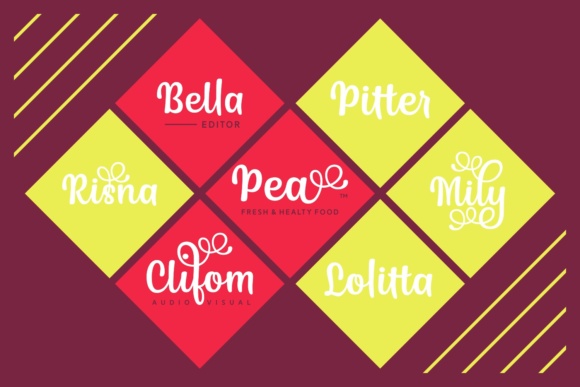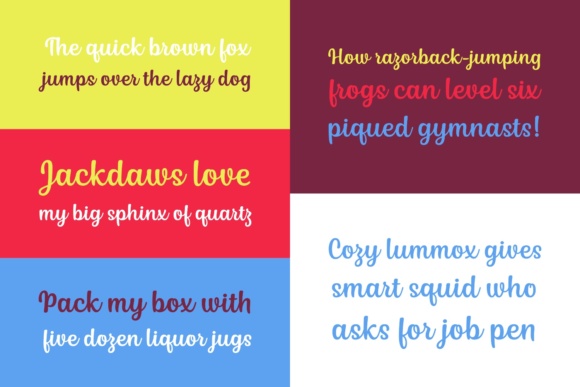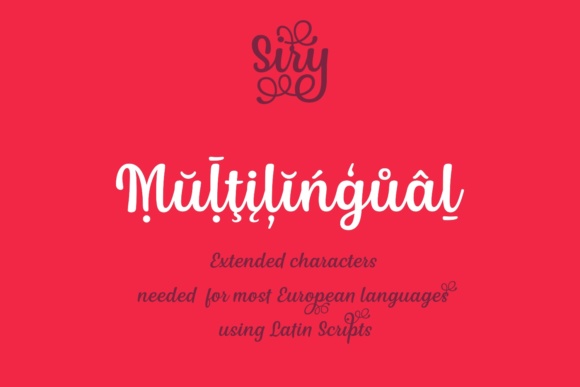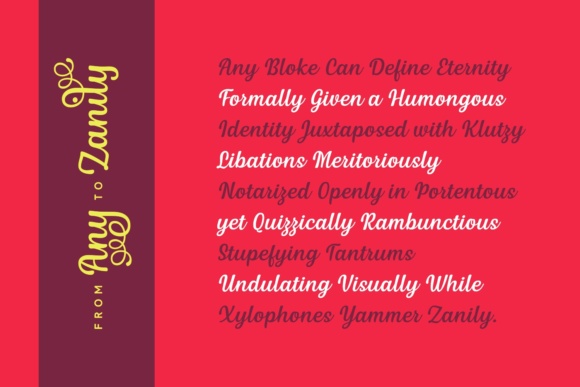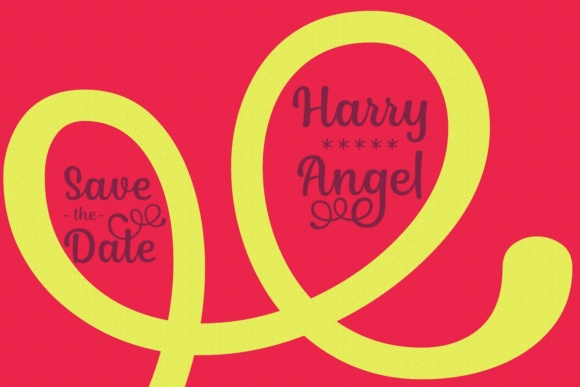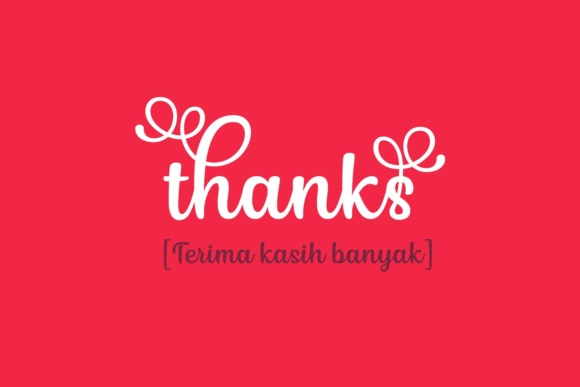
Introduction to Siry Font
Siry is a stunning and swirly display script font.
This font has a romantic appeal, and works well in designs that need an embellished and girly focal point .
Key Features of Siry Font
Why Choose Siry Font?